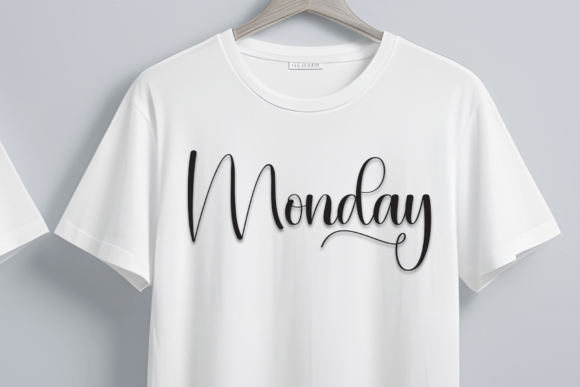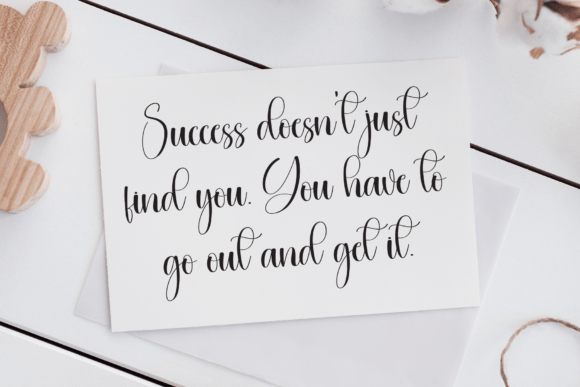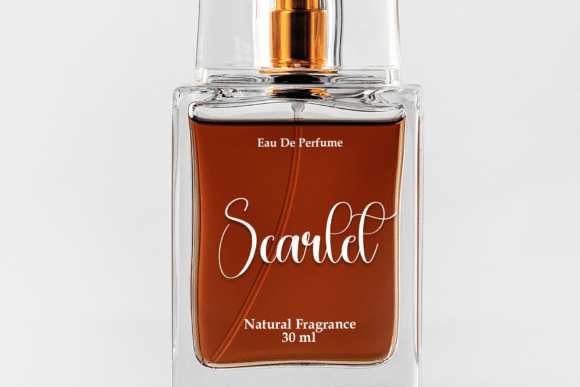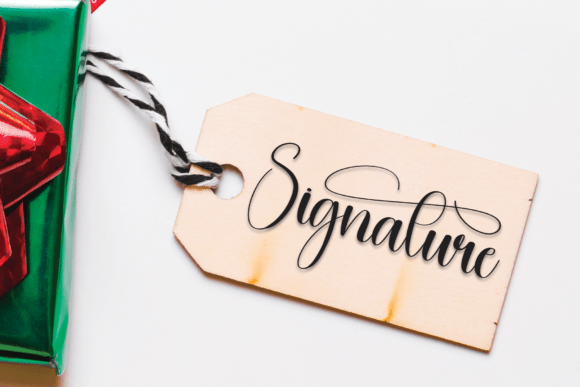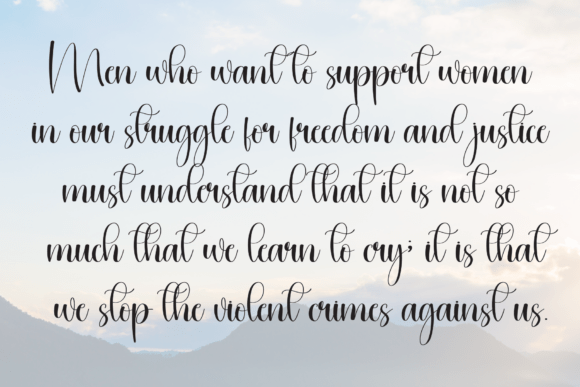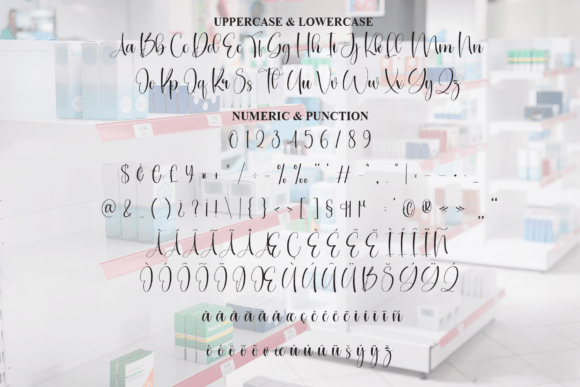
Introduction to Drugstore Font
Have you ever been scrolling through your favorite design platform, and suddenly, you stumble upon the perfect font to elevate your creative project? For me, that moment came when I discovered the enchanting Drugstore Font. Its delicate, handwritten style instantly captured my attention, and I knew I had to learn more about this charming design resource.
As a designer, you’re constantly on the lookout for high-quality fonts that can add an extra layer of personality to your work. The Drugstore Font is a valuable addition to any design toolkit, offering a unique blend of elegance and warmth that’s perfect for romantic projects, wedding invitations, and heartfelt messages. With its flowing strokes and transparent background, this font is a must-have for designers who want to convey emotions with style and charm.
Key Features of Drugstore Font
- High-quality, scalable font suitable for various creative projects, including logos, packaging, and advertising.
- Comes with a transparent background, allowing for easy integration into designs with complex backgrounds.
- Available in a single size, making it easy to scale up or down without compromising on quality.
- Designed with a vintage aesthetic, making it perfect for retro-themed designs and creative projects.
Honest Review: Drugstore Font
As a designer, I’m always on the lookout for unique and high-quality design resources to elevate my creative projects. Recently, I stumbled upon the Drugstore Font, and I’m excited to share my honest review.
What works well: ✨ The Drugstore Font has a distinct, vintage vibe that adds a touch of personality to any design. The font is highly versatile, making it suitable for a wide range of creative projects, from advertisements to packaging designs.
- High-quality design, with clear and crisp lettering.
Limitations: ⚠️ While the Drugstore Font is a great addition to any design library, it may not be suitable for all projects. The font’s vintage style may not appeal to designers working with modern or minimalist themes.
Overall impression: I’m impressed with the Drugstore Font’s unique character and high-quality design. It’s a great resource for designers looking to add some personality to their creative projects. However, it’s essential to consider the project’s tone and style before using this font.
What is Drugstore Font?
Drugstore Font is a high-quality, free download design resource that offers a unique and creative aesthetic for your projects. It’s a versatile font that can be used in a variety of contexts, from branding and marketing materials to digital art and graphic design.
Drugstore Font is commonly used in branding and marketing materials, such as logos, business cards, and brochures. It’s also used in digital art and graphic design projects, such as posters, flyers, and social media graphics.
To get the most out of Drugstore Font, use it on a transparent background to create a modern and sleek look. You can also experiment with different font sizes and colors to create a unique and eye-catching design.